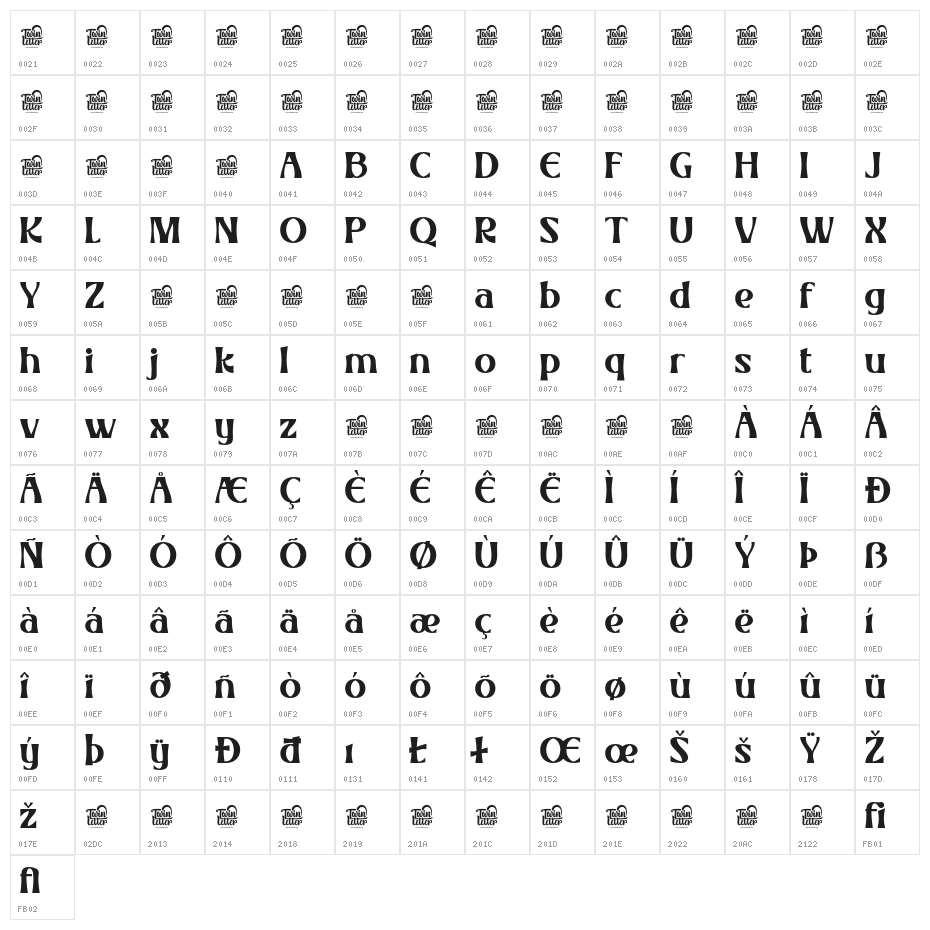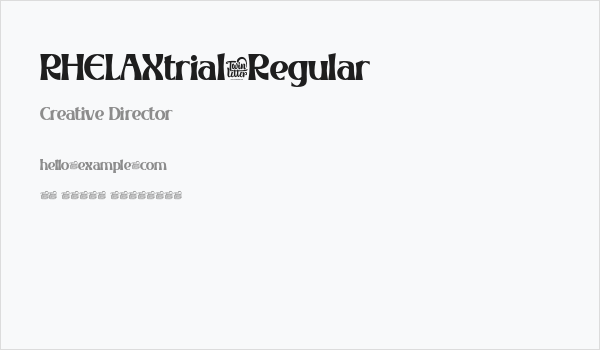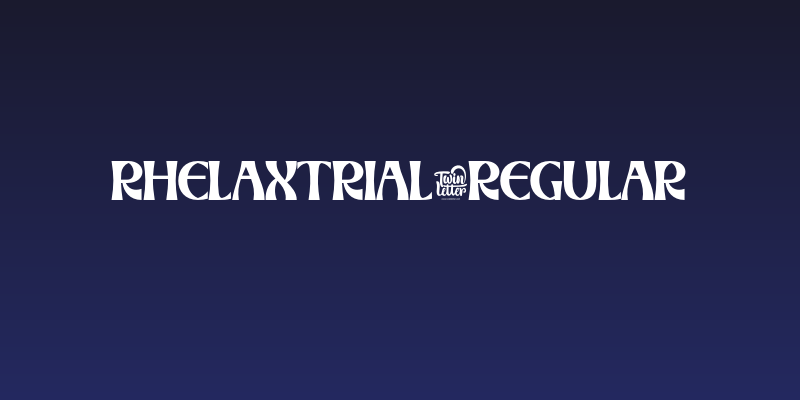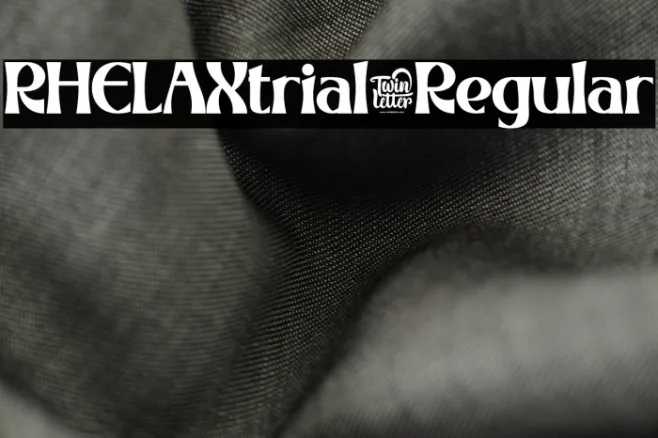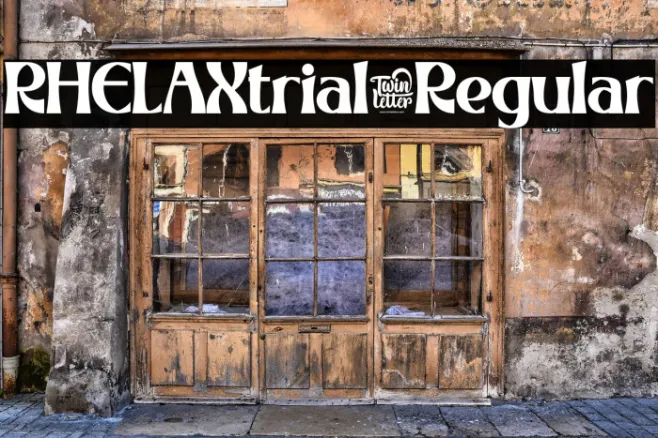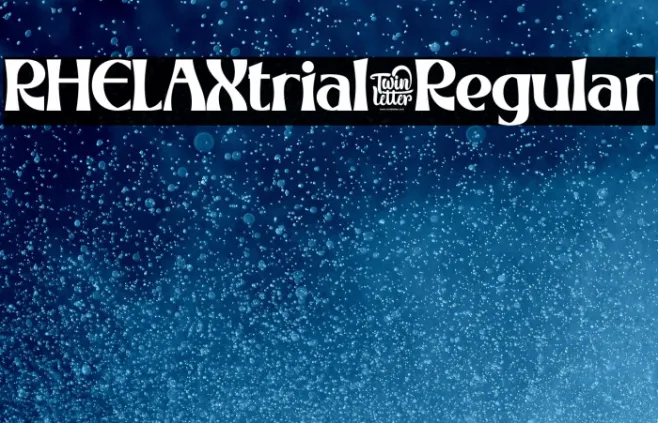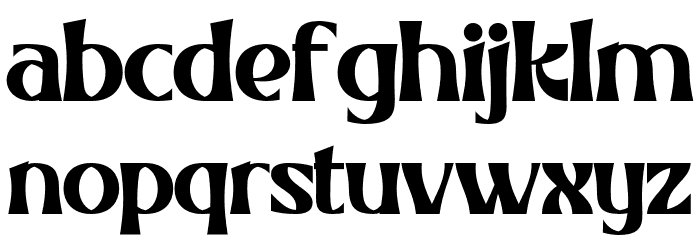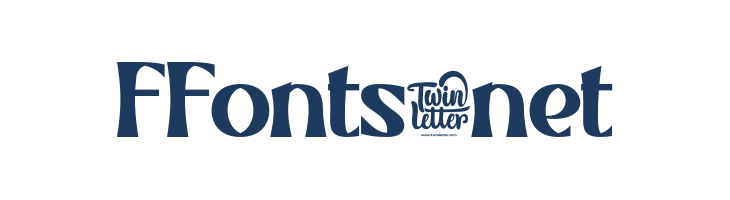
RHELAXtrial-Regular Font
RHELAXtrial-Regular Description
This font features a bold and dynamic design with a unique, artistic flair. The characters are crafted with a sense of movement, incorporating sharp angles and curves that create a striking visual impact. The uppercase letters exhibit a strong presence, while the lowercase letters maintain a consistent style with slightly softer edges. The numbers and special characters are designed to complement the overall aesthetic, ensuring a cohesive look across all text. This font's distinctive style makes it ideal for creative projects that require a bold statement.
| Proposed Projects | Ideal for branding, posters, headlines, and creative design projects. |